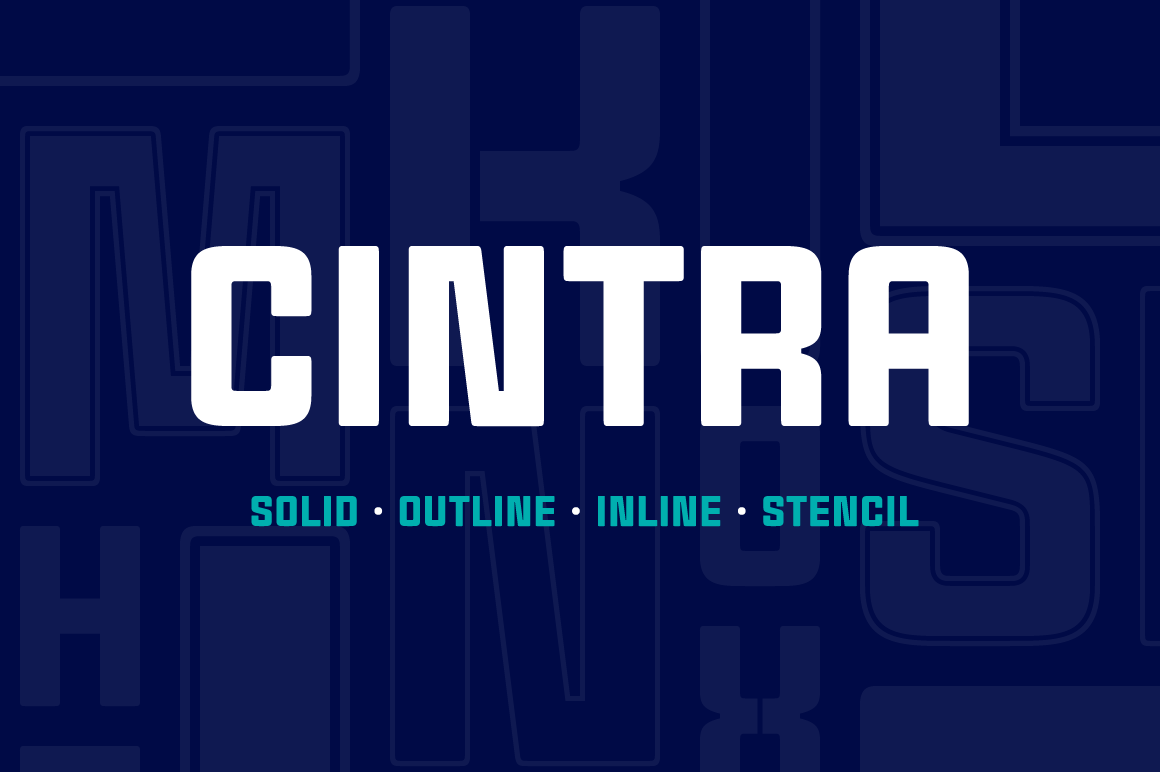
Cintra Font Family
Designer: Pablo Balcells
Design date: 2014
Cintra font family has been designed for Graviton Font Foundry by Pablo Balcells in 2014. It is a sans serif, bold, geometric typeface with subtle rounded angles, which provides a soft, pleasent appearence.
Cintra consists of 8 styles.